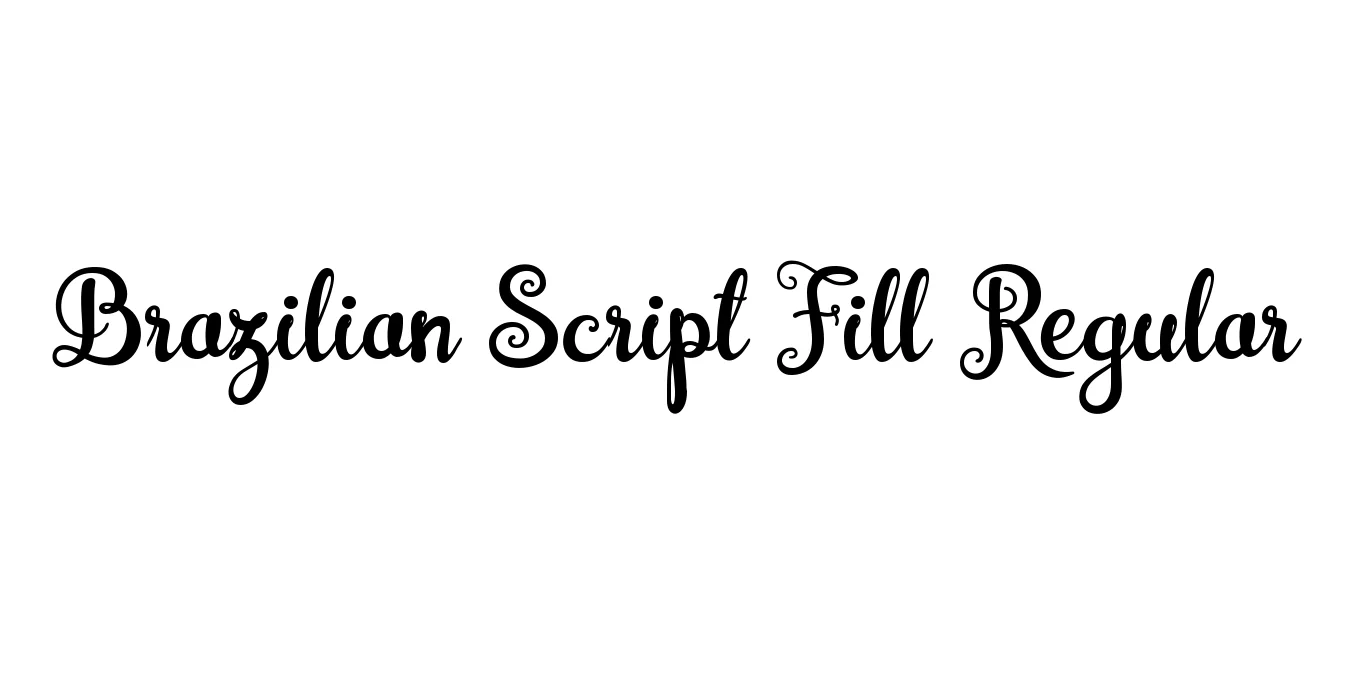
Brazilian Script Fill Regular
Brazilian Script Fill Regular is a bold and energetic typeface designed by the prolific Swedish type designer Mans Greback. This font is a masterful representation of contemporary brush calligraphy, drawing inspiration from the fluid and rhythmic hand-lettering styles often seen in South American street art and signage. The 'Fill' version specifically provides a solid, heavyweight presence that ensures high visibility and a commanding aesthetic for display purposes.
This typeface is characterized by its expressive swashes and dynamic character connections, which create a seamless flow across words. Its high contrast and hand-crafted feel make it an excellent choice for designers seeking to add a sense of movement and personality to their projects. Whether utilized for large-scale print or digital headers, Brazilian Script Fill Regular stands out as a versatile tool for high-impact communication and artisanal branding.
Brazilian Script Fill Regular Best Uses
Creating distinct and memorable logos with a hand-lettered touch.
Designing bold, energetic names and numbers for jerseys.
Adding a premium, artisanal feel to product labels and boxes.
Generating eye-catching headlines for posters and digital banners.